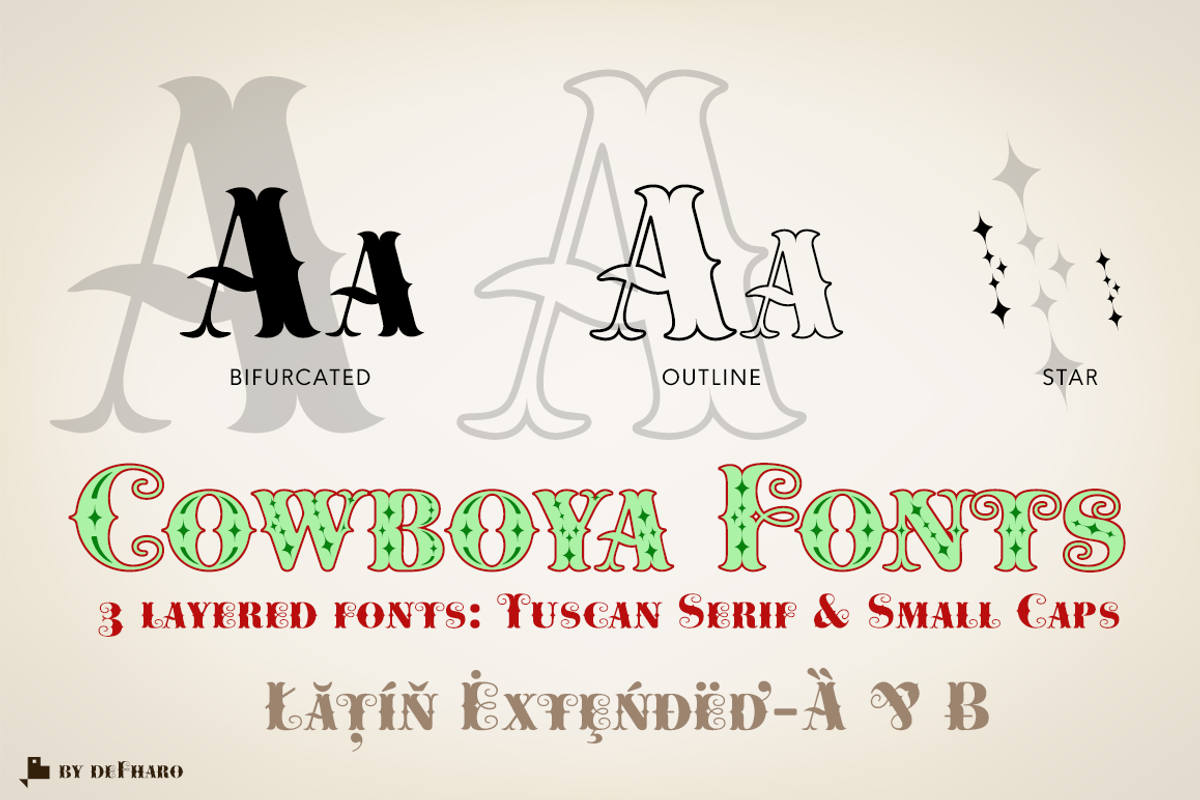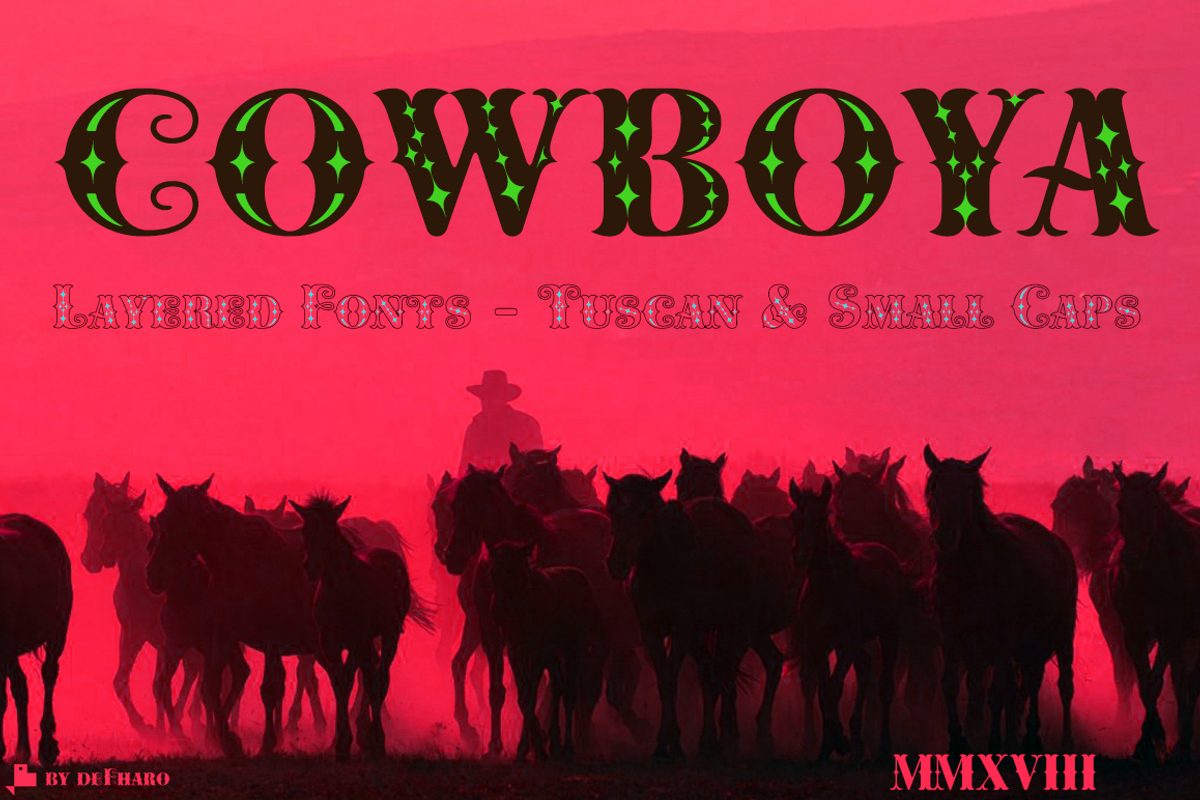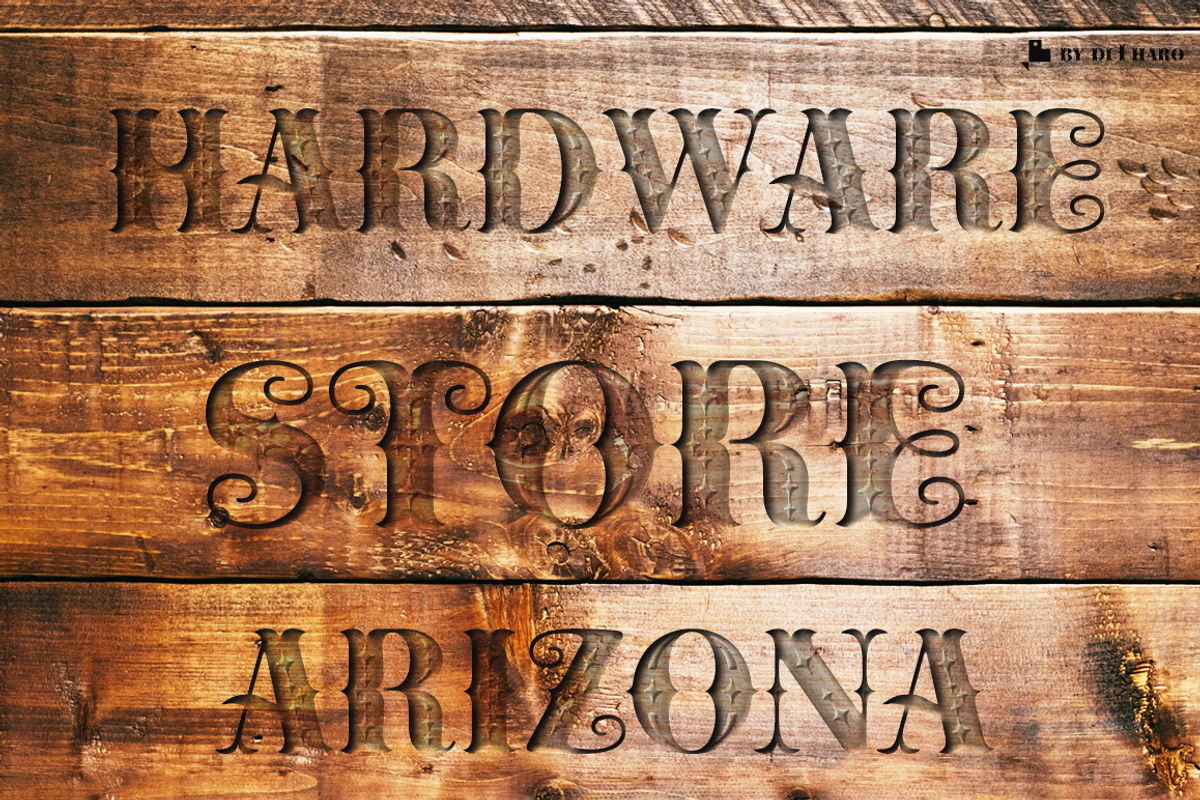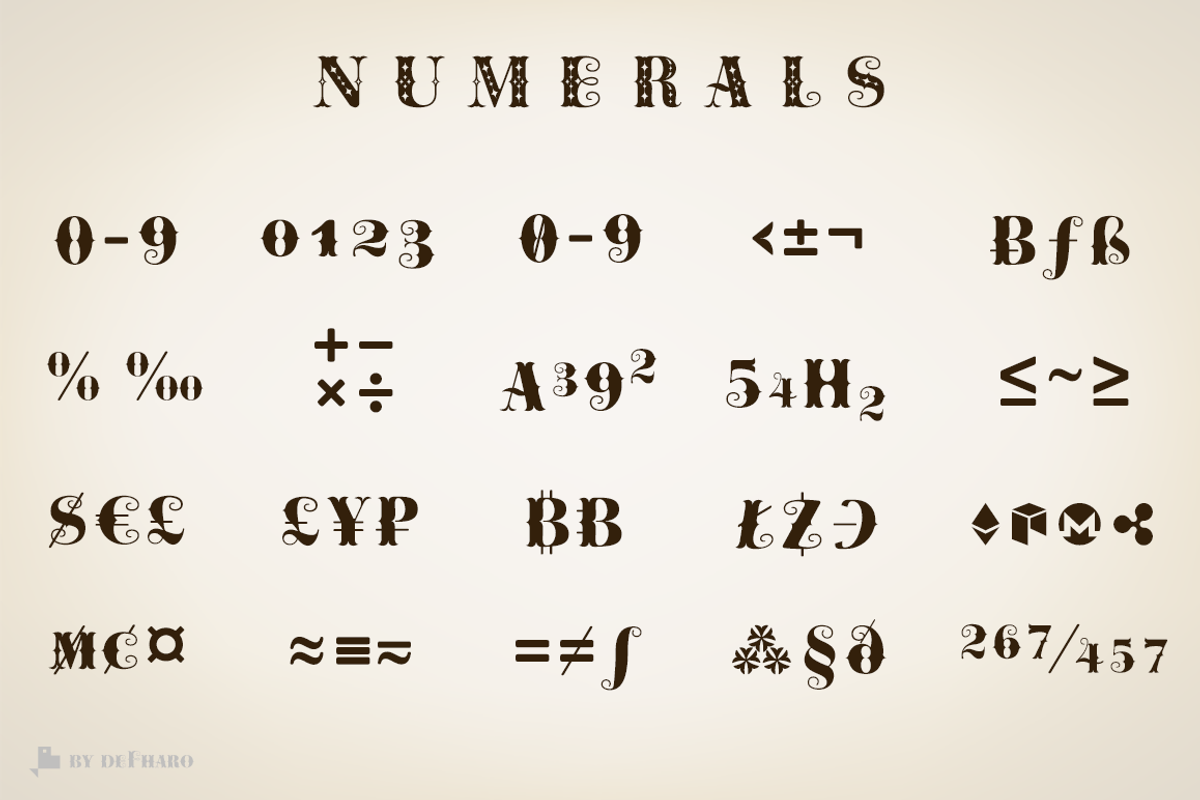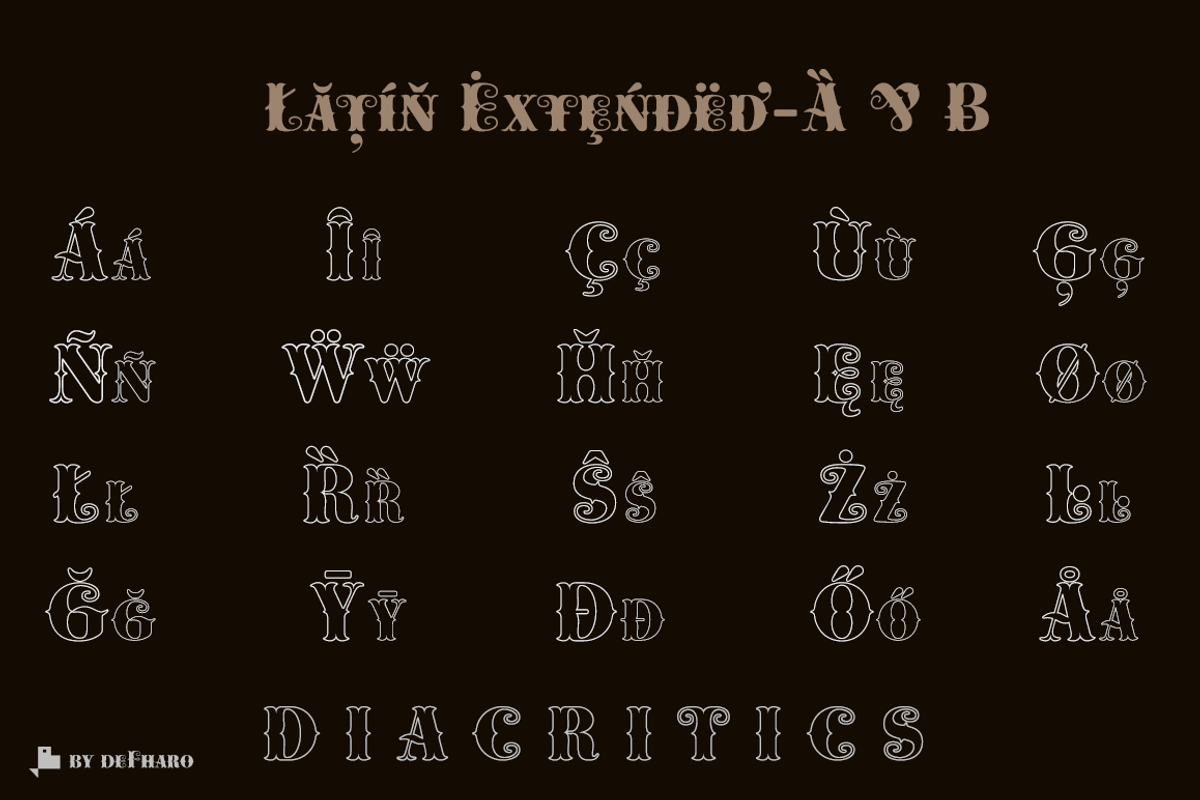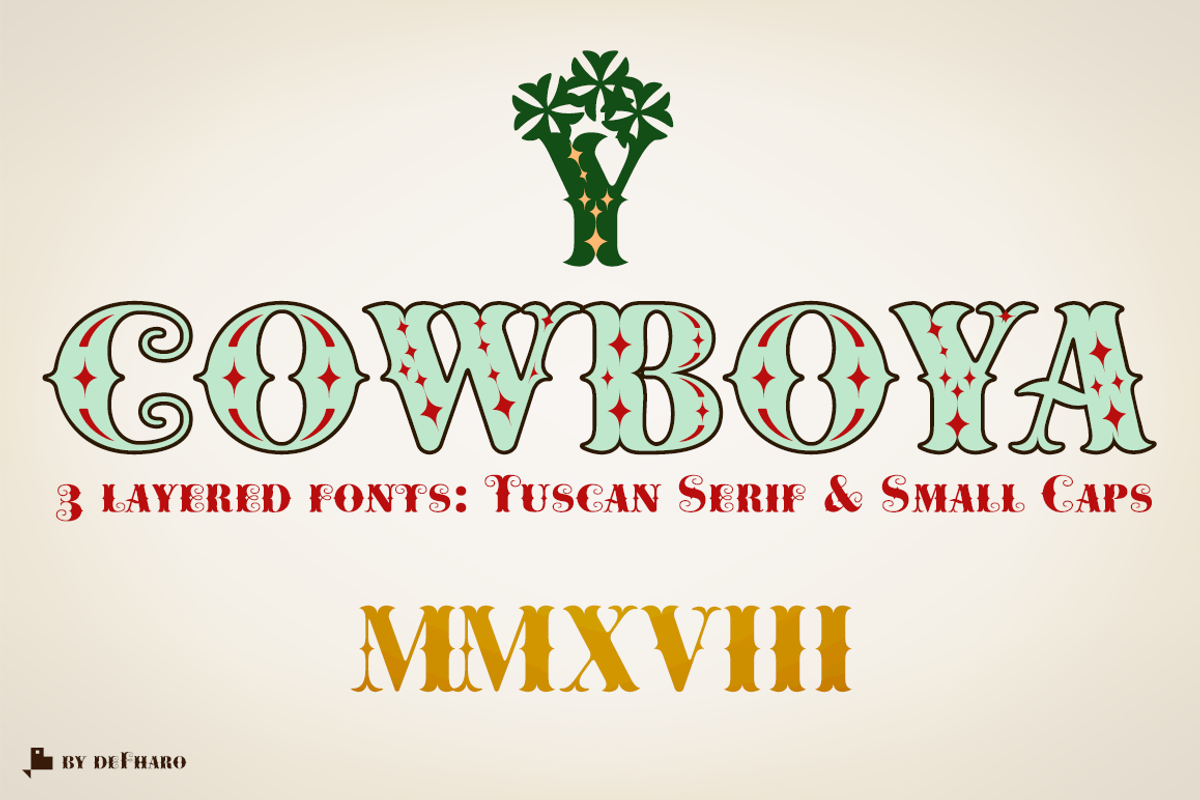
Cowboy Tuscan & Layered -3 fonts-
Cowboya is a typography with concave Tuscan serif very contrasted and modernist inspiration with letters in small caps, includes 3 versions of the font that can be used by superimposed layers which results in multicolored typographic titles.
For the design of this typeface I was inspired by the credit titles used in the black film directed by Frizt Lang in 1950 called The House of the River, to the drawing of the original forms of the letters i added decorative elements to give the fonts a festive character, traditionally this type of decorative fountains that emerged in Italy in the nineteenth century were used in large headlines and posters that were closely related to circus shows, carnival or environments of the Far West American. I have also rounded the sharper joints of the antlers and counterforms to create a contrast with the sharp Tuscan serifs which brings a modern background of techno inspiration and soft shapes
Bifurcated, Outline & Stars (3 layered fonts)
Cowboya includes the symbol of Bitcoin and other of the most important cryptocurrencies.
- I have also rounded the sharper joints of the antlers and counterforms to create a contrast with the sharp Tuscan serifs which brings a mode